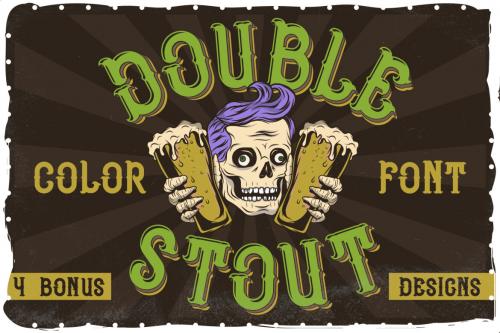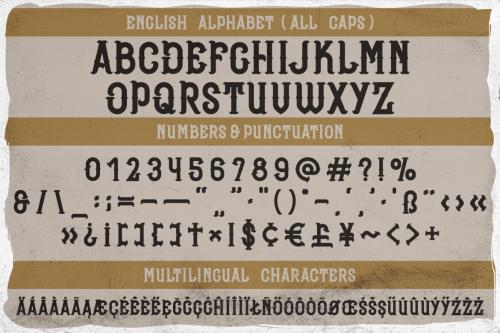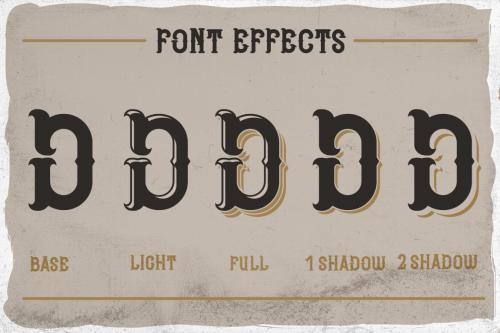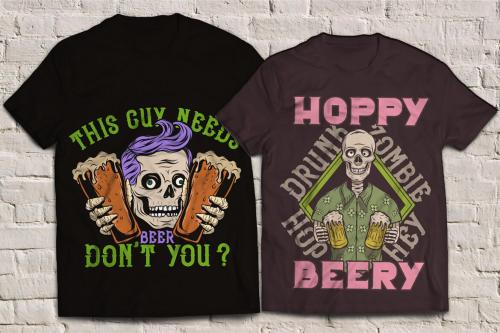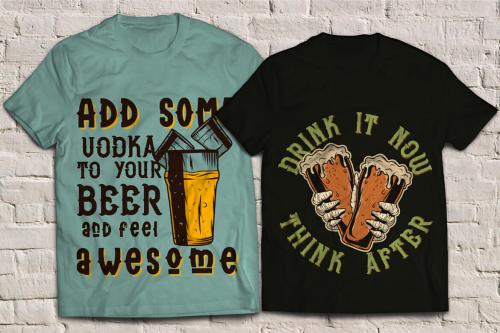
Introducing my newest font called "Double Stout". It has wide language support of multilingual characters (check out all available characters in previews). Bonus 5 t-shirt designs. This font will look good on any vintage-styled designs like a poster, T-shirt, label, logo, etc.
A lot of additional symbols, and multilingual support.
5 EDITABLE designs. You can use the font and the elements of the set for the creation of any design for your purposes with minimal loss of time. The designs can be used for patches, labels, badges, signs, symbols, stickers, cups, pins, bags, caps, apparel, products for men, packaging design, and much more.
The old-school style badges will be suitable for the creation of promotional materials for the advertisement of companies, events, clubs, stores, shops etc.